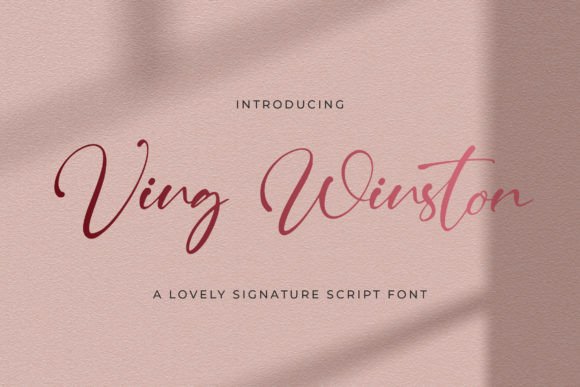
Unleash your artistic flair with Ving Winston, an exquisite script font crafted to inspire and captivate. Immerse yourself in the beauty of its delicate strokes and elegant curves, designed to transform your creative visions into masterpieces. Ving Winston's inherent charm lies in its ability to effortlessly blend with a multitude of design styles, enhancing your projects with a touch of sophistication and individuality.
As a script font, Ving Winston exudes a natural, hand-lettered aesthetic, reminiscent of heartfelt handwritten messages. Its characters dance across the page with grace and fluidity, evoking a sense of intimacy and authenticity. Whether you're designing logos, branding materials, or heartfelt invitations, Ving Winston will add a personal touch that resonates with your audience.
With Ving Winston, you'll discover a versatile companion that complements a wide range of creative projects. Its delicate strokes lend themselves perfectly to creating eye-catching headlines, while its flowing nature adds a touch of elegance to body text. Explore the possibilities of wedding invitations adorned with intricate calligraphy, business cards that exude professionalism, or social media posts that capture attention with their unique flair.
Ving Winston is not just a font; it's an artistic expression that breathes life into your designs. It's a font that speaks to the heart, conveying emotions and messages with its graceful lines and captivating curves. Embrace the beauty of handwritten artistry and let Ving Winston transform your creative ideas into unforgettable experiences.
Don't settle for ordinary fonts that blend into the background. Choose Ving Winston, the script font that commands attention, captivates hearts, and leaves a lasting impression. Experience the magic of Ving Winston today and elevate your designs to new heights.